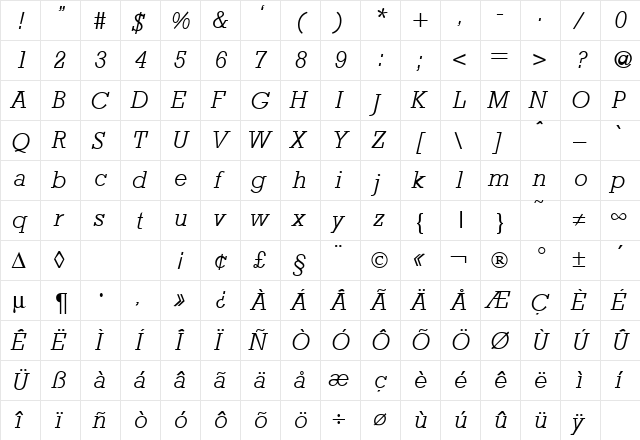
RambaultLight RegularItalic Font Preview
Design Context for RambaultLight Typeface
RambaultLight takes a measured approach to typography — its balanced proportions and neutral character make it a reliable workhorse for both digital and print work. The dynamic lean of this cut emphasises speed and emphasis in any layout. The delicate stroke weight brings airiness and refinement to layouts.